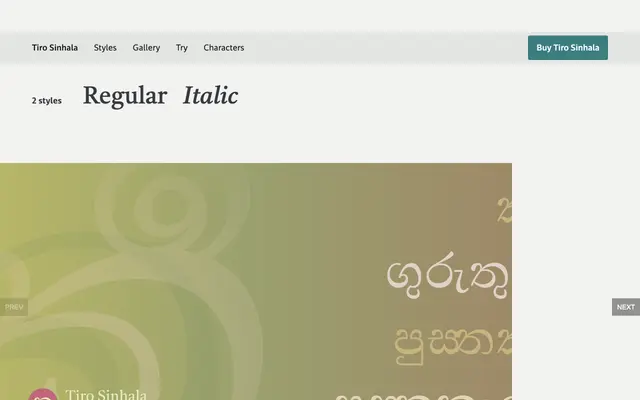
Tiro Sinhala
Tiro Typeworks · John Hudson, Fiona Ross, Kaja Słojewska, Paul Hanslow
A two-style typeface for the Sinhala script, designed by John Hudson and Fiona Ross with italic adaptation by Kaja Słojewska and Paul Hanslow.
Designed by John Hudson and Fiona Ross at Tiro Typeworks, this family provides Regular and Italic styles for the Sinhala script alongside extended Latin coverage. The italic was adapted by Kaja Słojewska and Paul Hanslow. With 1,539 glyphs in total, the character set reflects Tiro's long-standing specialism in complex script typography for South and Southeast Asian writing systems.
Tiro Sinhala is a typeface designed for the Sinhala script, a South Asian abugida, alongside Latin support. It falls within the broader category of serif typefaces adapted for non-Latin script systems.